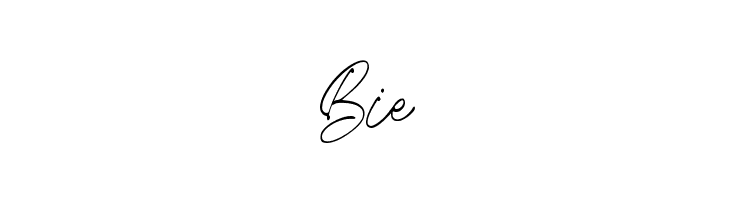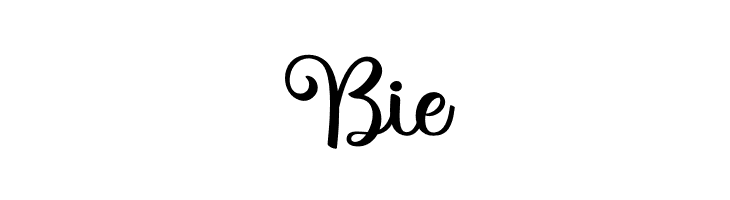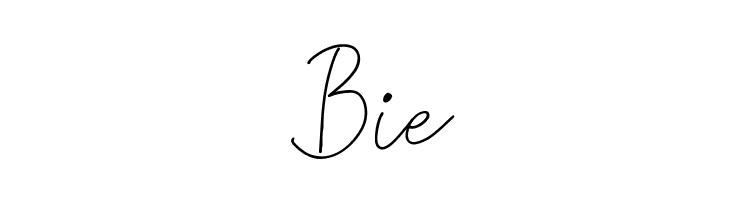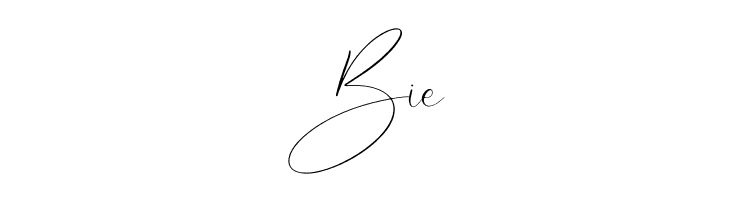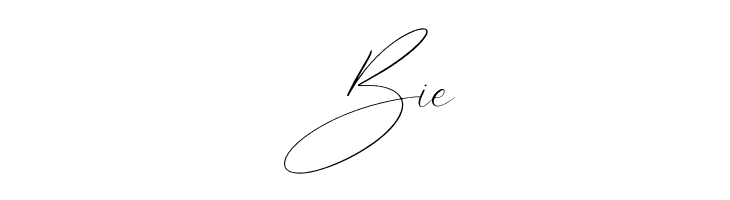
An elegant script font with flowing, interconnected letters and high contrast strokes.
A playful, hand-drawn font with bold, rounded characters.
A lively and modern script font with dynamic strokes and medium contrast.
A bold, rugged font with a hand-painted, artistic style.
A sophisticated script font with elegant, flowing cursive letterforms.
A playful and whimsical script font with flowing, interconnected letters and decorative swashes.
A playful, handwritten script font with a casual and flowing style.
A cursive, handwritten font with elegant, flowing strokes.
An elegant, flowing script font with high contrast and intricate letterforms.
A sophisticated and elegant script font with a handwritten style.